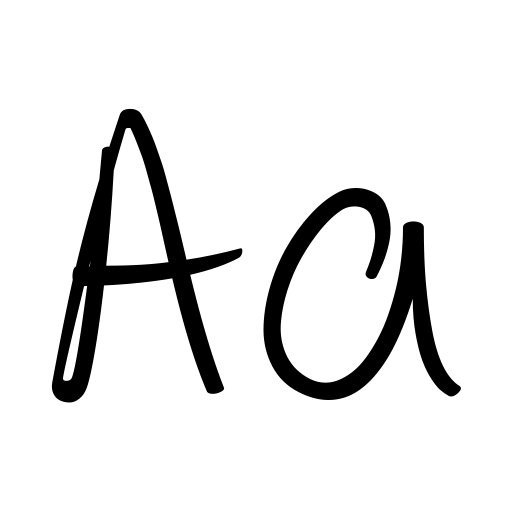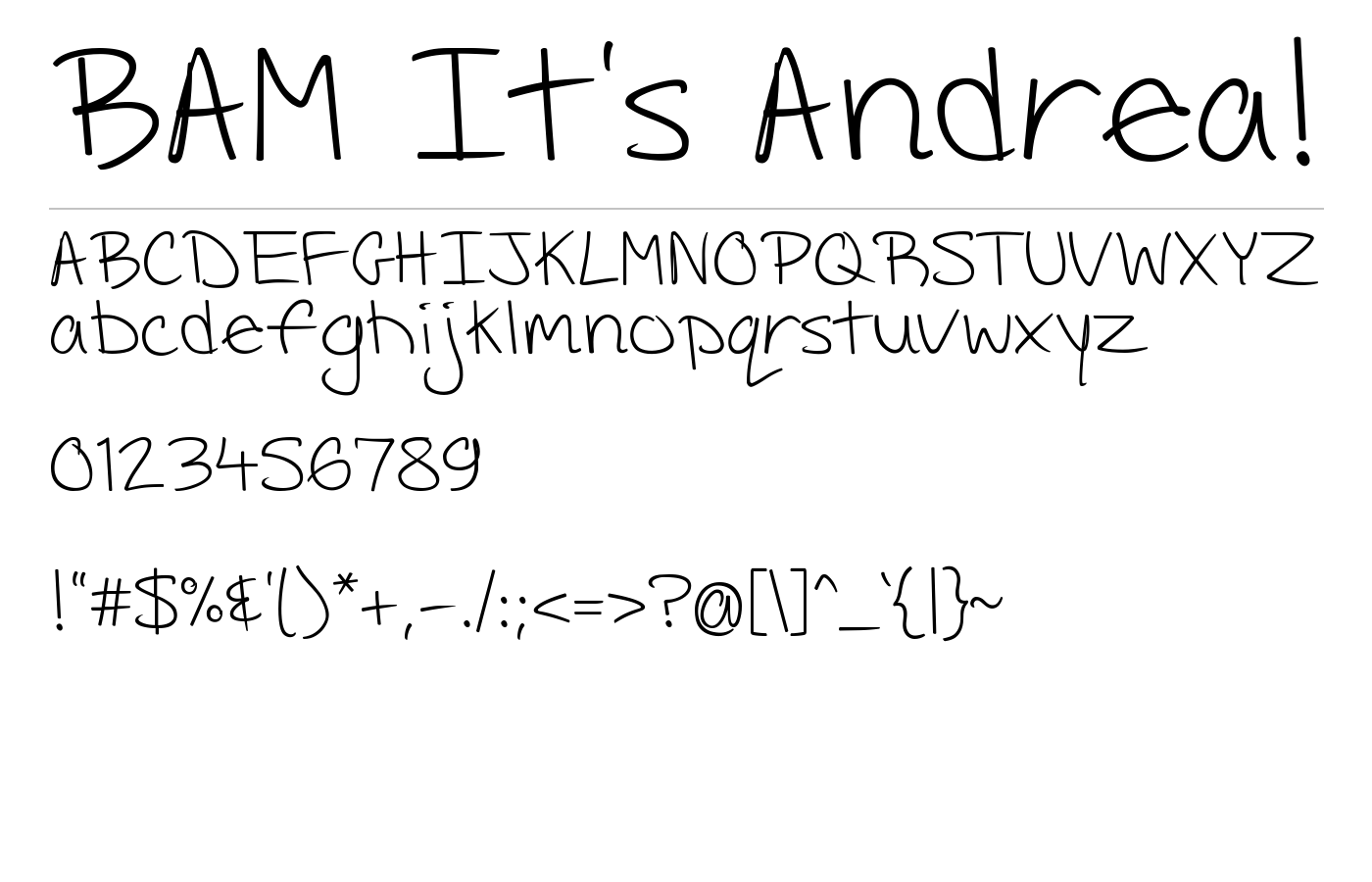
BAM It's Andrea! is a playful, handwritten sans serif font with a casual and friendly feel. Its thin, irregular strokes and natural letter shapes give it an approachable, personal touch, making it ideal for informal designs, kids’ materials, or branding that seeks warmth and creativity. This font works well in digital and print projects where a relaxed, human vibe is desired, especially in headlines and short texts.
BAM It's Andrea! Font
About BAM It's Andrea! Font